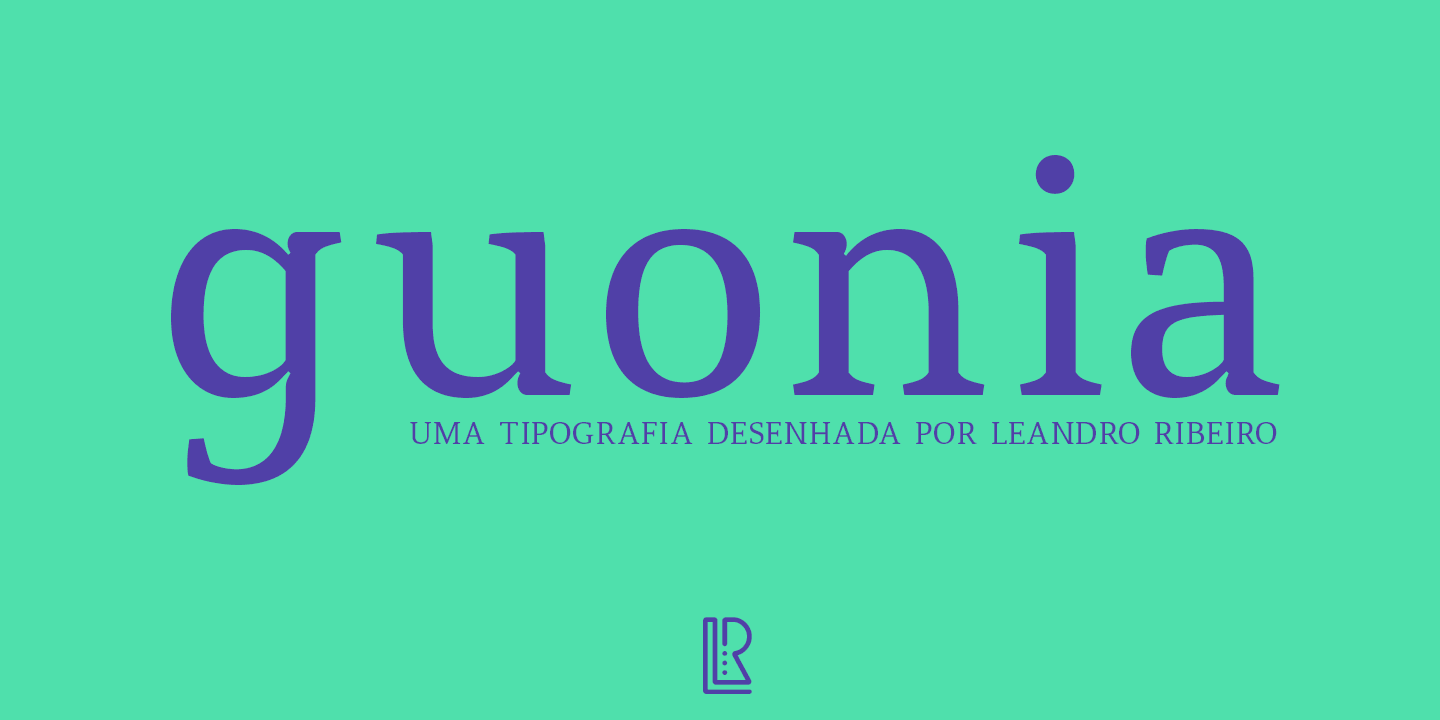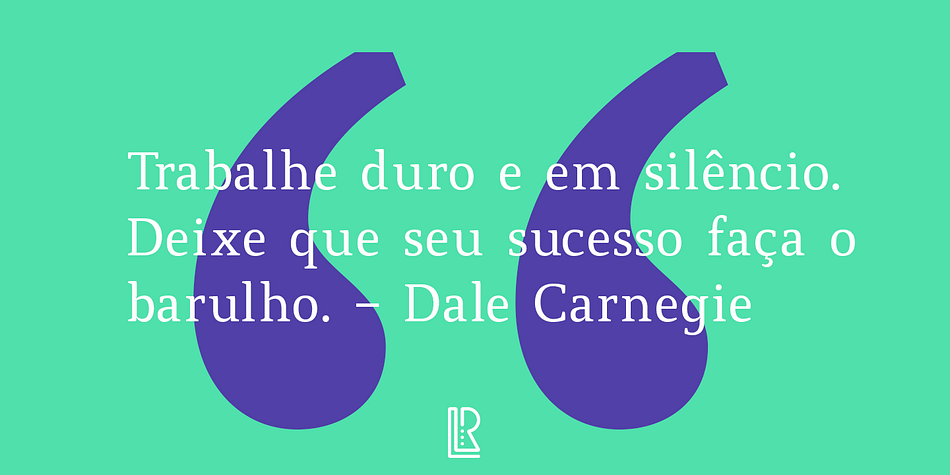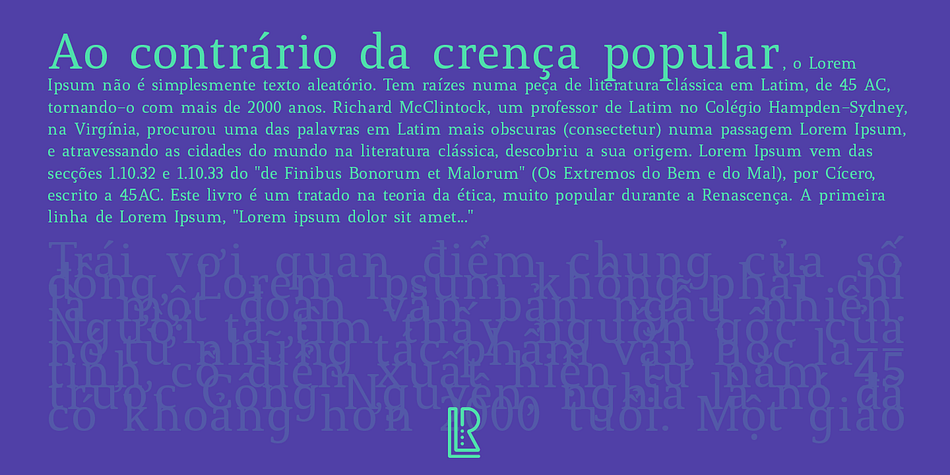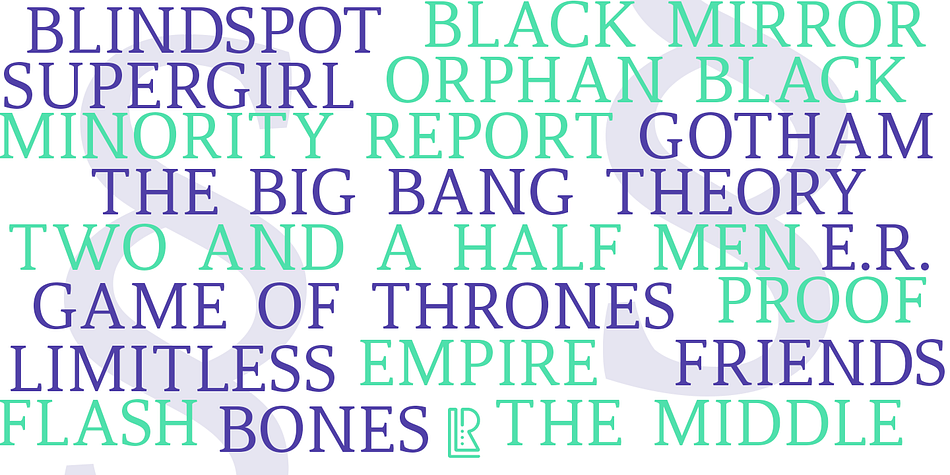
Designed by Leandro Ribeiro Machado, Guonia is a serif font published by Leandro Ribeiro Machado.
Guonia serif type is designed for comfortable reading, great for text, fitting nicely into small and large blocks of text.